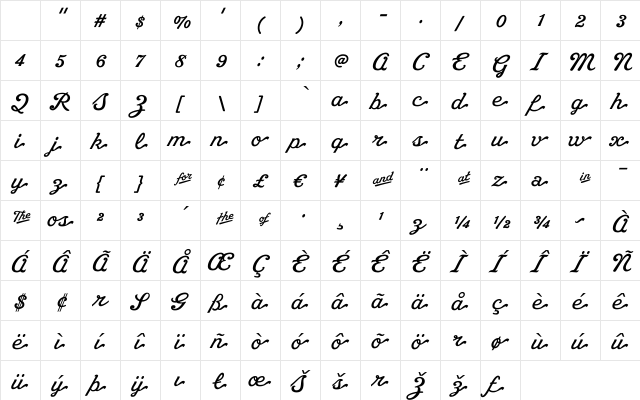
Complete BeverlyShoresScriptSGA TT Regular glyph index. Displaying only characters natively supported by BeverlyShoresScriptSGA TT Regular font.
BeverlyShoresScriptSGA TT flows with the natural rhythm of handwritten lettering, making it ideal for designs that call for warmth and personal expression.
Font Pairing: Combine BeverlyShoresScriptSGA TT with a simple geometric sans for maximum contrast - the tension between flowing curves and clean structure is a classic typographic pairing.
Pro Tip: Use BeverlyShoresScriptSGA TT for short runs of text - names, titles, or taglines. Extended body copy in script faces tires the eye quickly.